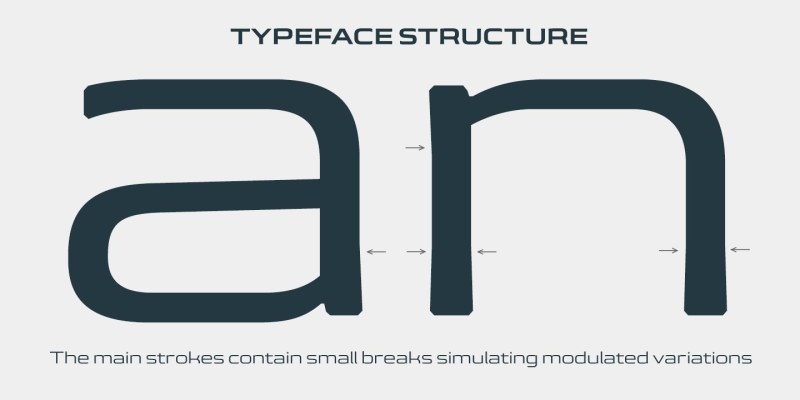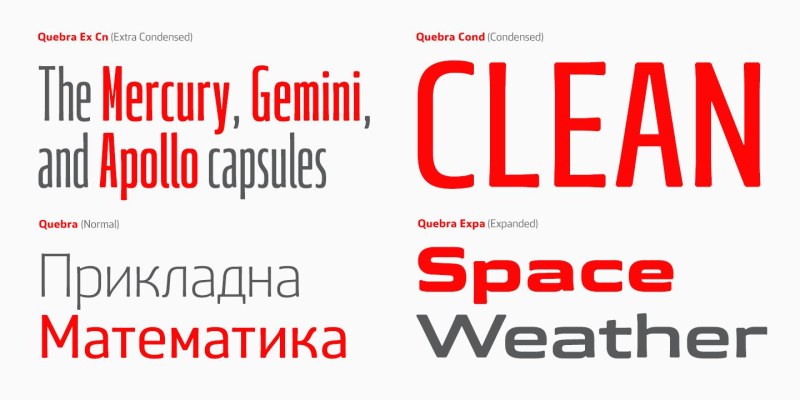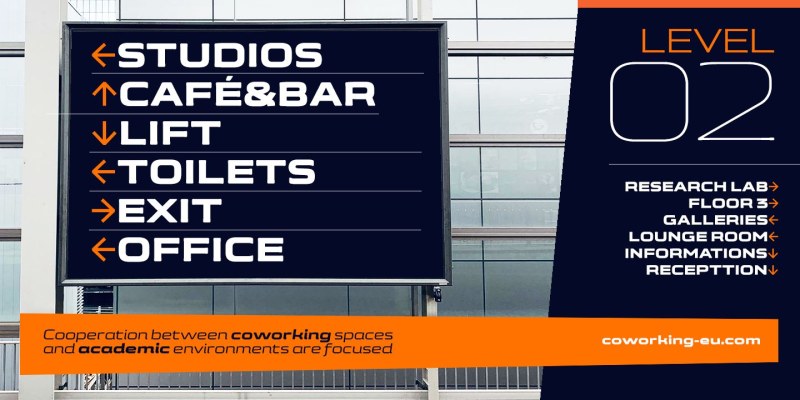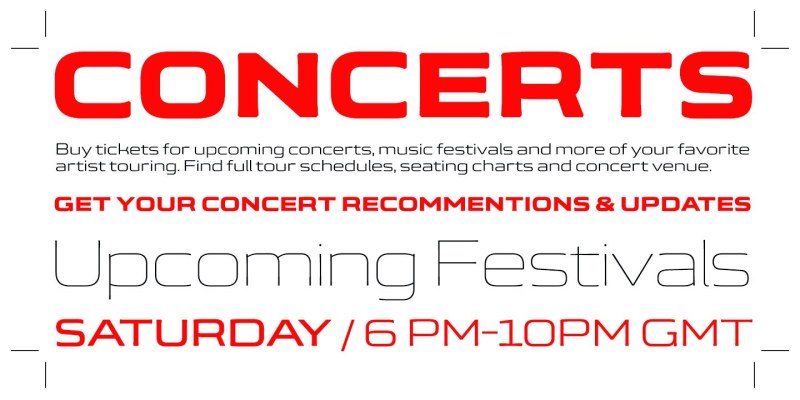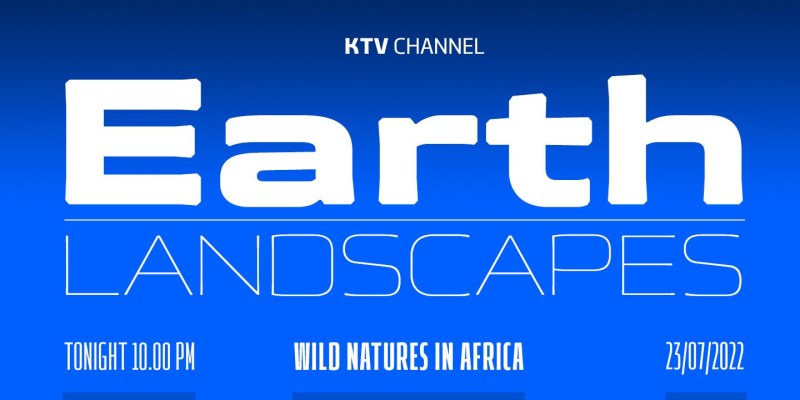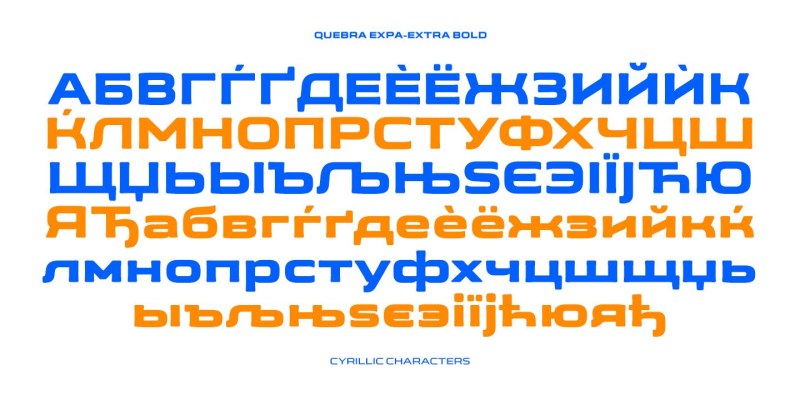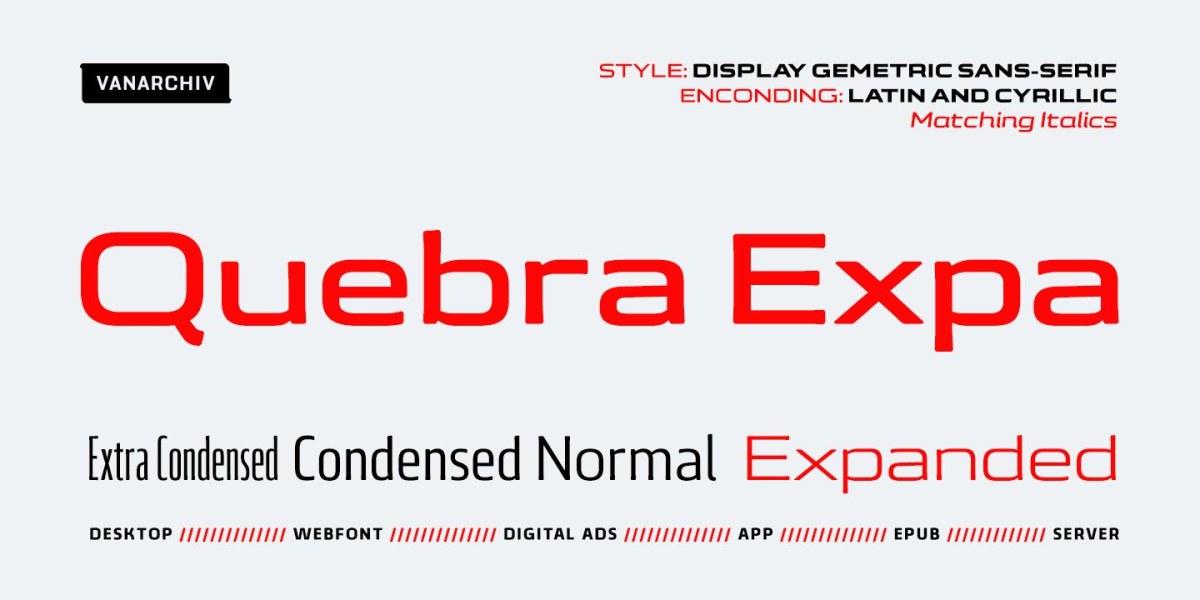
Quebra Expa Font Family
Quebra Expa (Expanded) is an extend display sans-serif font family, available with four widths (Extra Condensed, Normal and Expanded) and ten weights, italics versions are available. The main strokes contain small breaks simulating modulated variations on the letterforms, these details are more present on large body sizes. All font versions contain Latin and Cyrillic encoding characters and also ligatures, case-sensitive forms, fractions, oldstyle and finally tabular figures.
Quebra Expa Font Family is a Sans Serif Fonts font that brings a professional and versatile look to your projects. Quebra Expa (Expanded) is an extend display sans-serif font family, available with four widths (Extra Condensed, Normal and Expanded) and ten weights, italics versions are available.